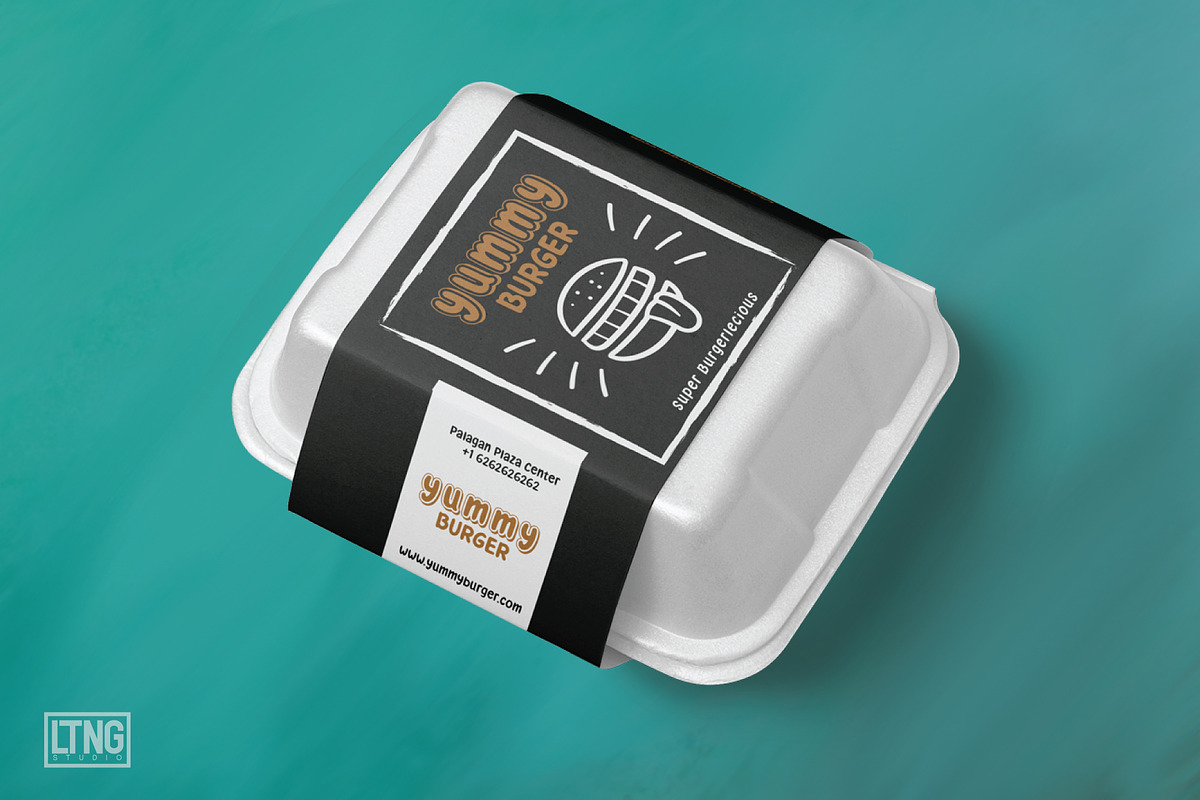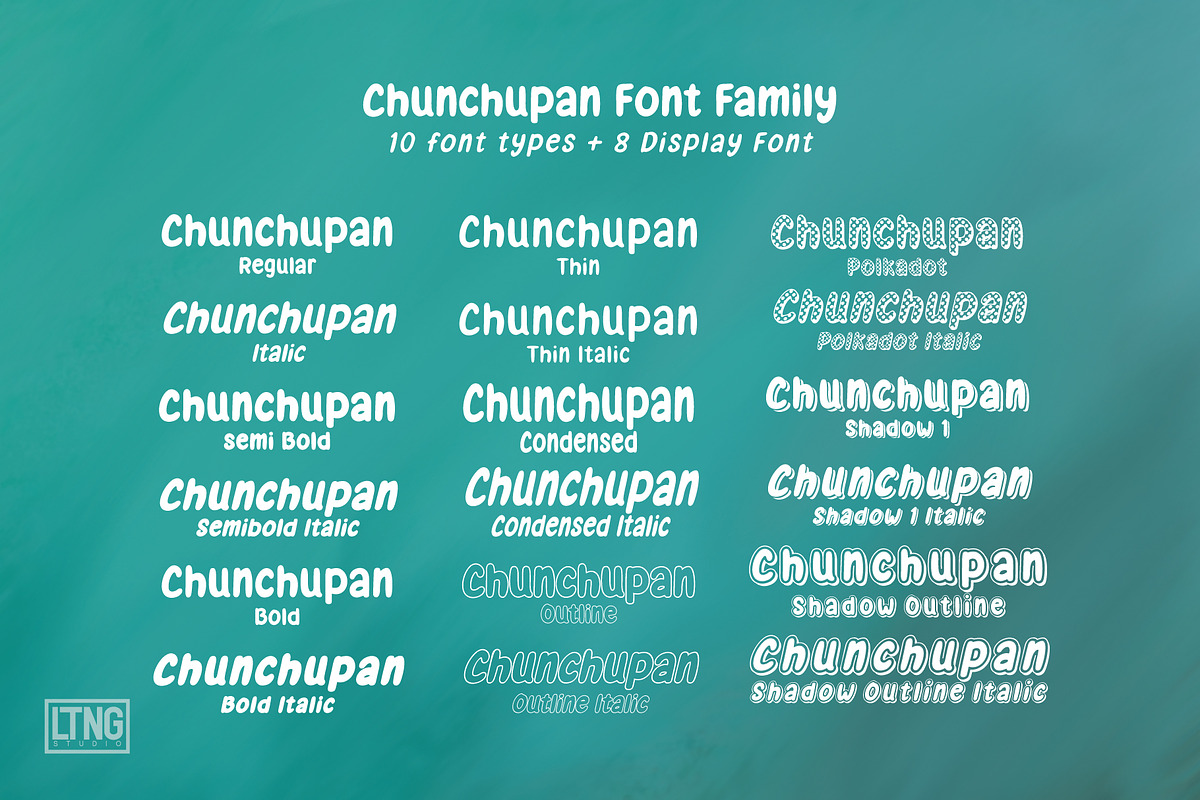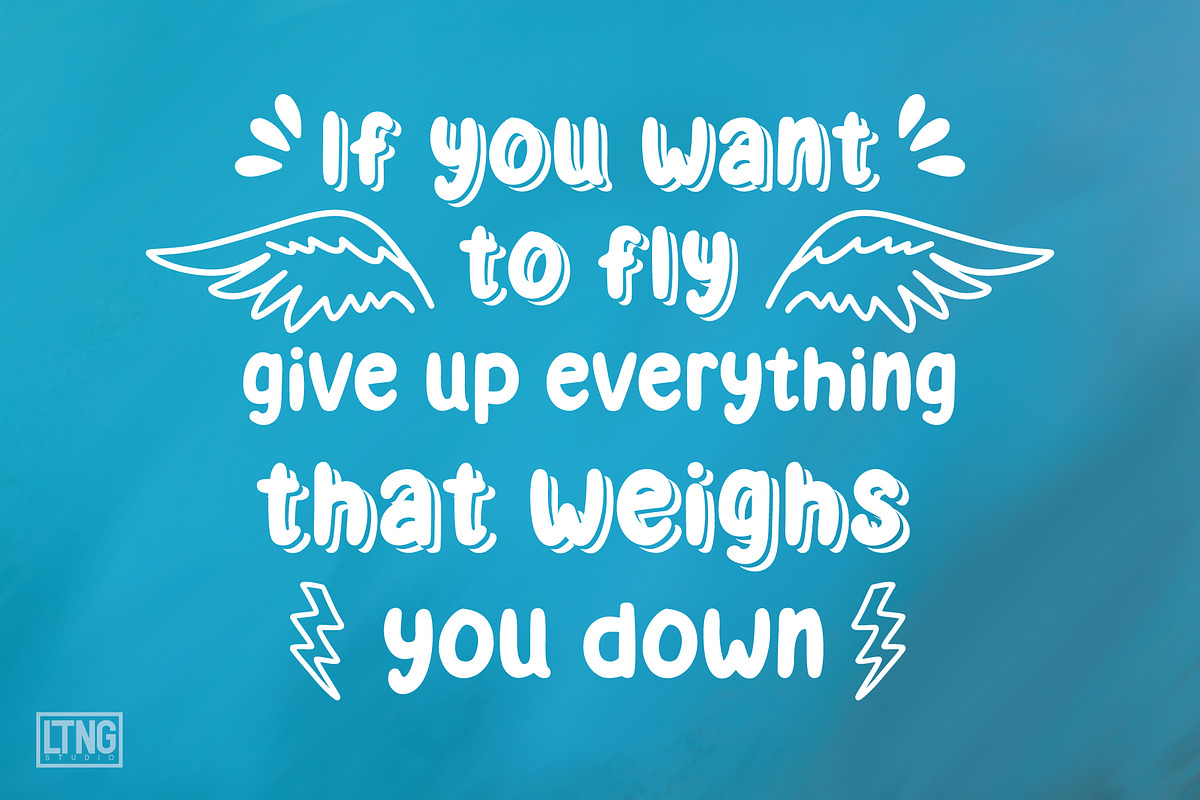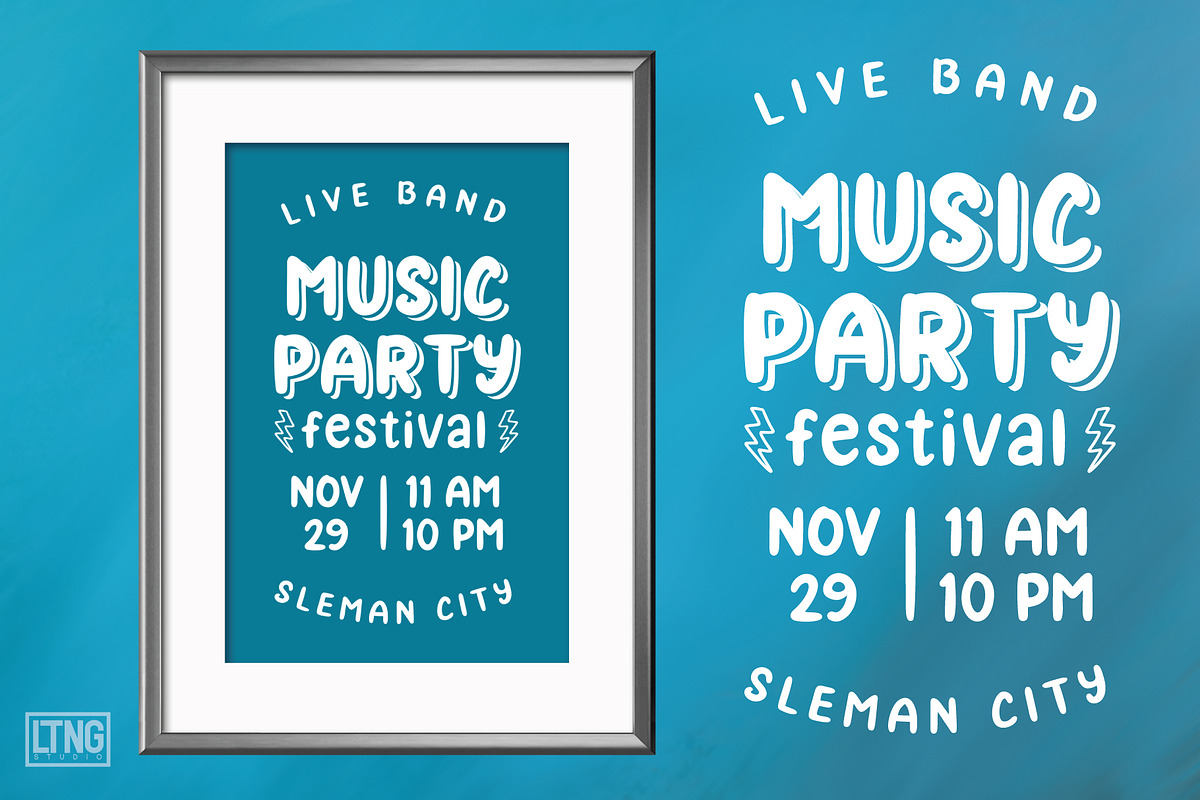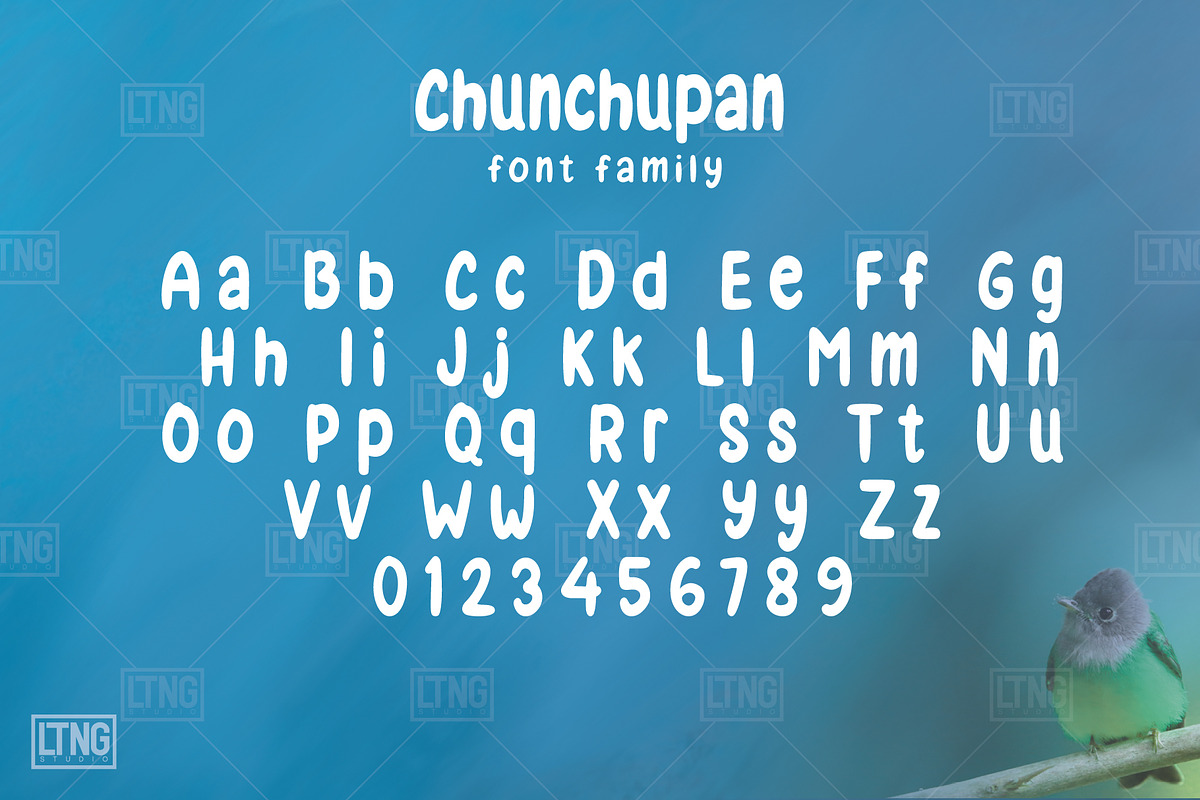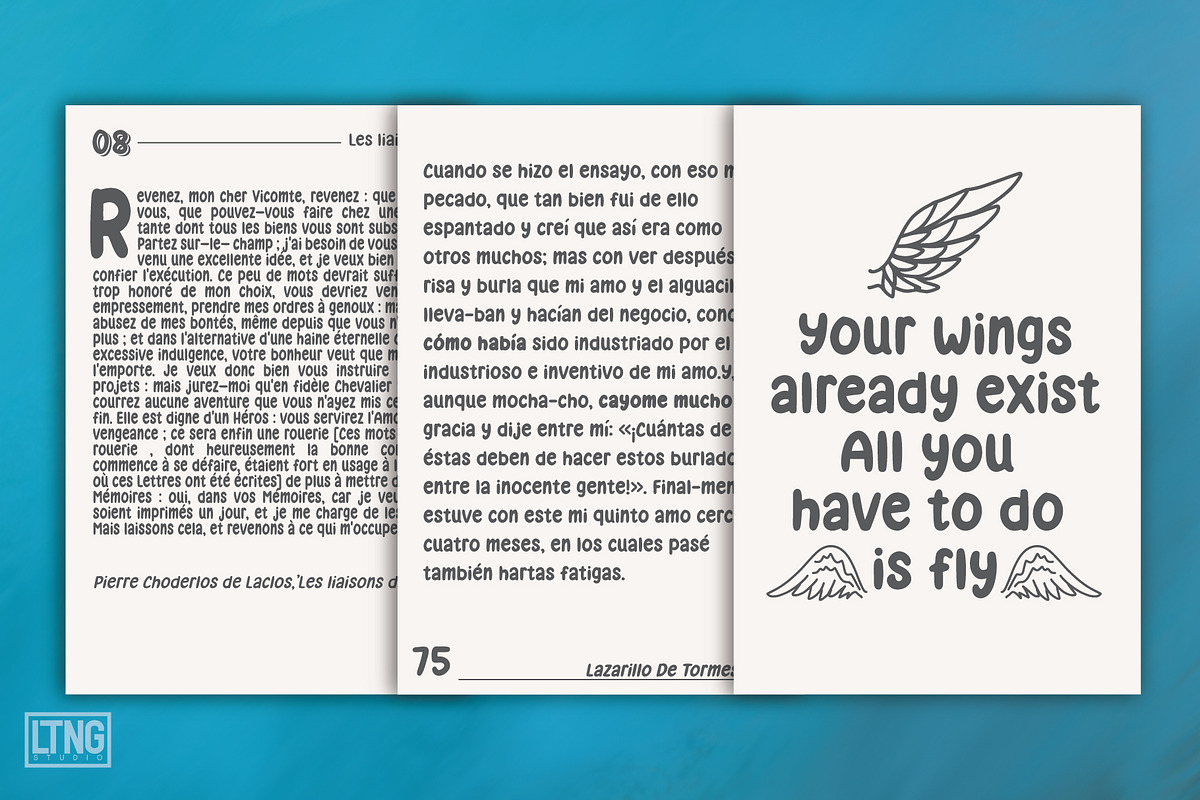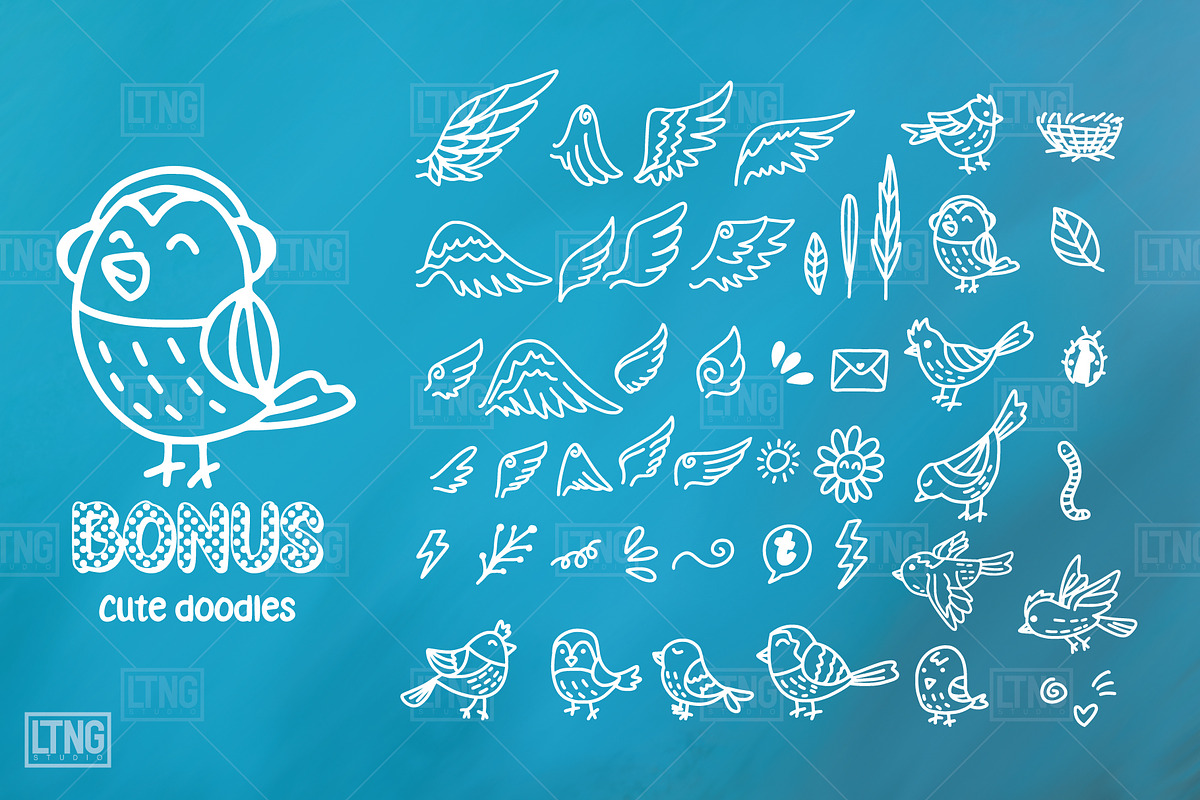
Chunchupan Font Family
Chunchupan Font Family Introducing Chuncupan Font Family is a unique and cute handwriting with bonus cute doodle element. 18 fonts family (8 display fonts) will allow you to make tons of gorgeous typographic design such as DIY projects, greeting cards, labels, quotes, posters, wall art, branding, packaging, websites, logo design, packaging design & photography overlays, signs, and so much more! To add to the creative idea of yours, you will get more then cute doodle elements. See the preview above to get some inspiration on how can you use this font for your projects.
Why Chunchupan Font Family is worth a look
Chunchupan Font Family by LTNG STUDIO fits naturally into Branding, posters, packaging, typography.